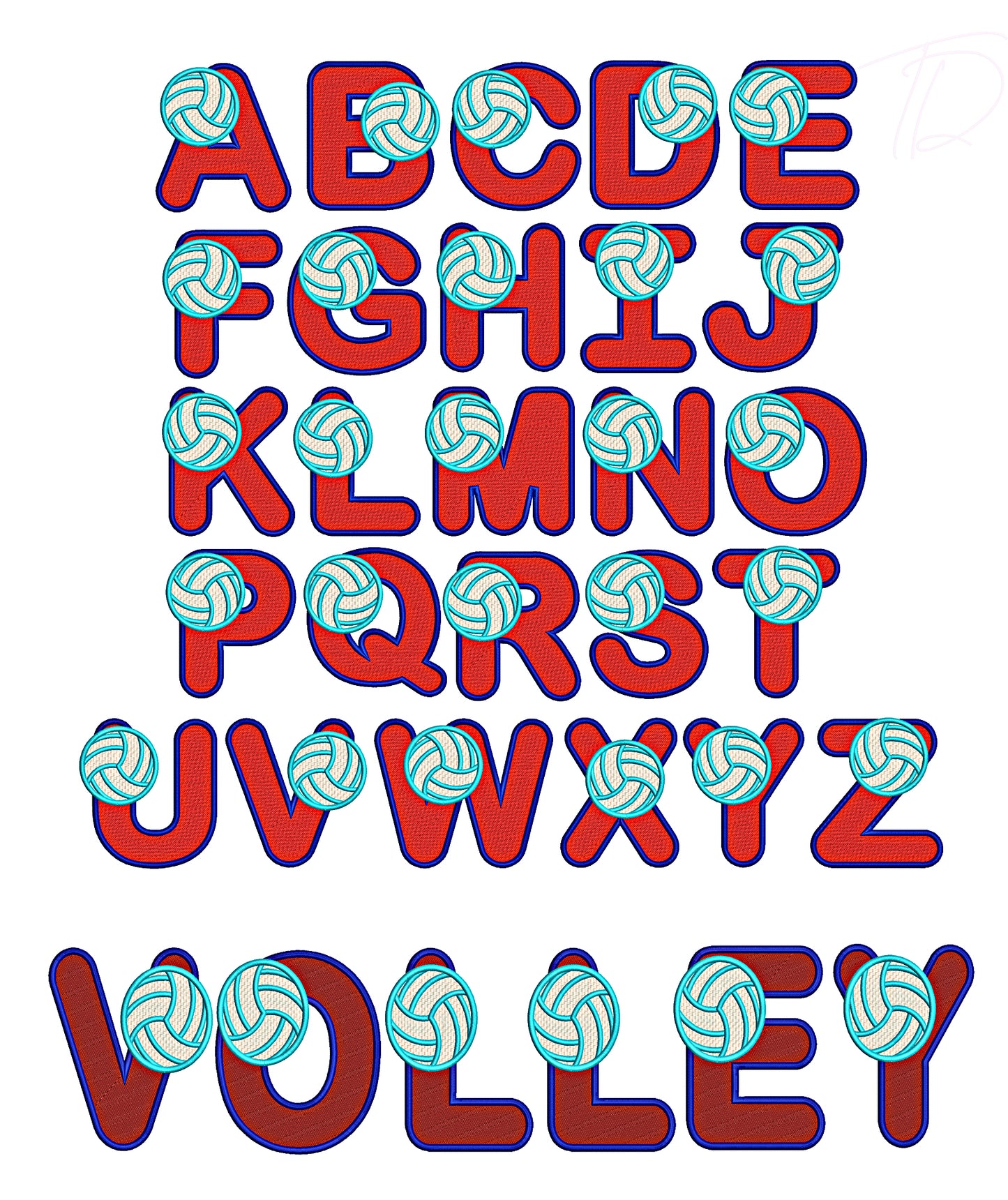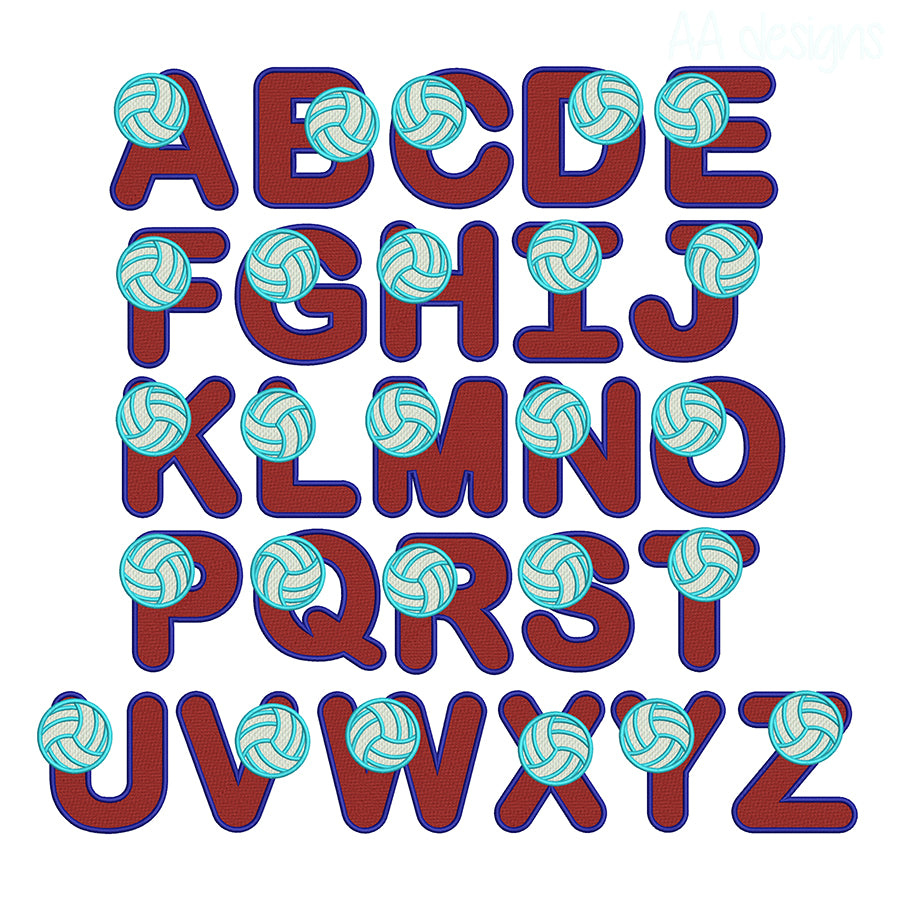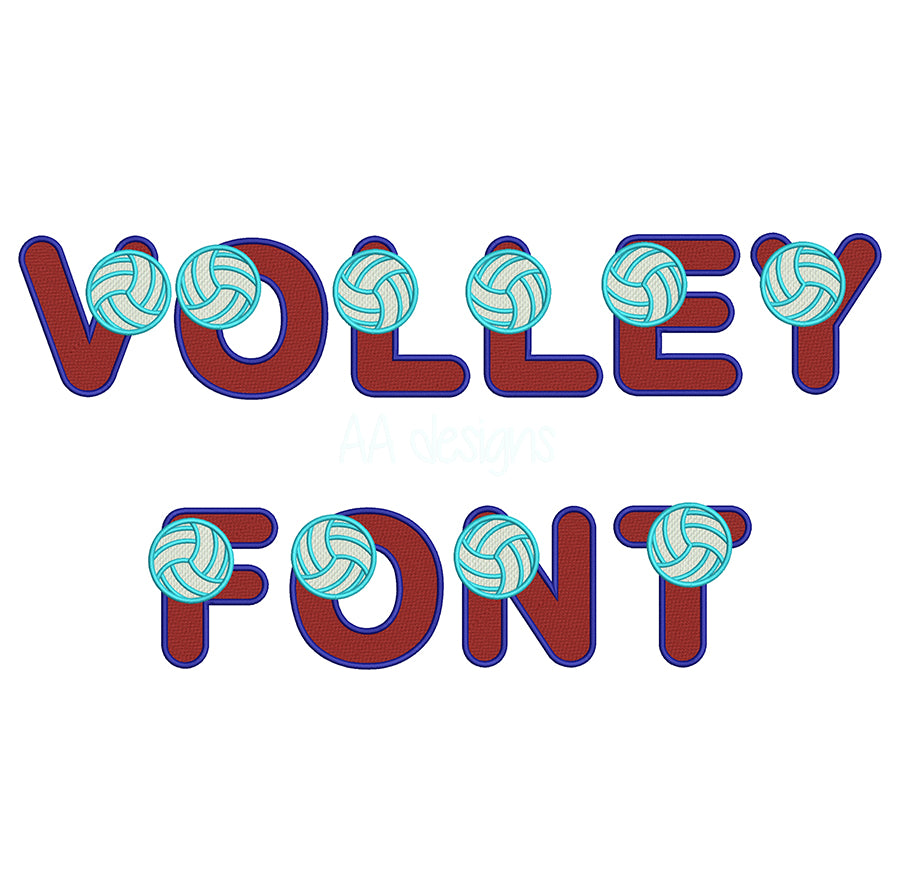
Volleyball Embroidery Digital Font
Spike up your embroidery game with our Volleyball Embroidery Digital Font — a bold, energetic alphabet designed for machine embroidery fans, team apparel makers, and sports gift creators who love the court.
- Bold, athletic letterforms inspired by classic volleyball team jersey typography
Whether you're gearing up a beach volleyball crew, outfitting an indoor team, or creating a personalized sports gift, this font delivers set-and-spike quality in every letter.